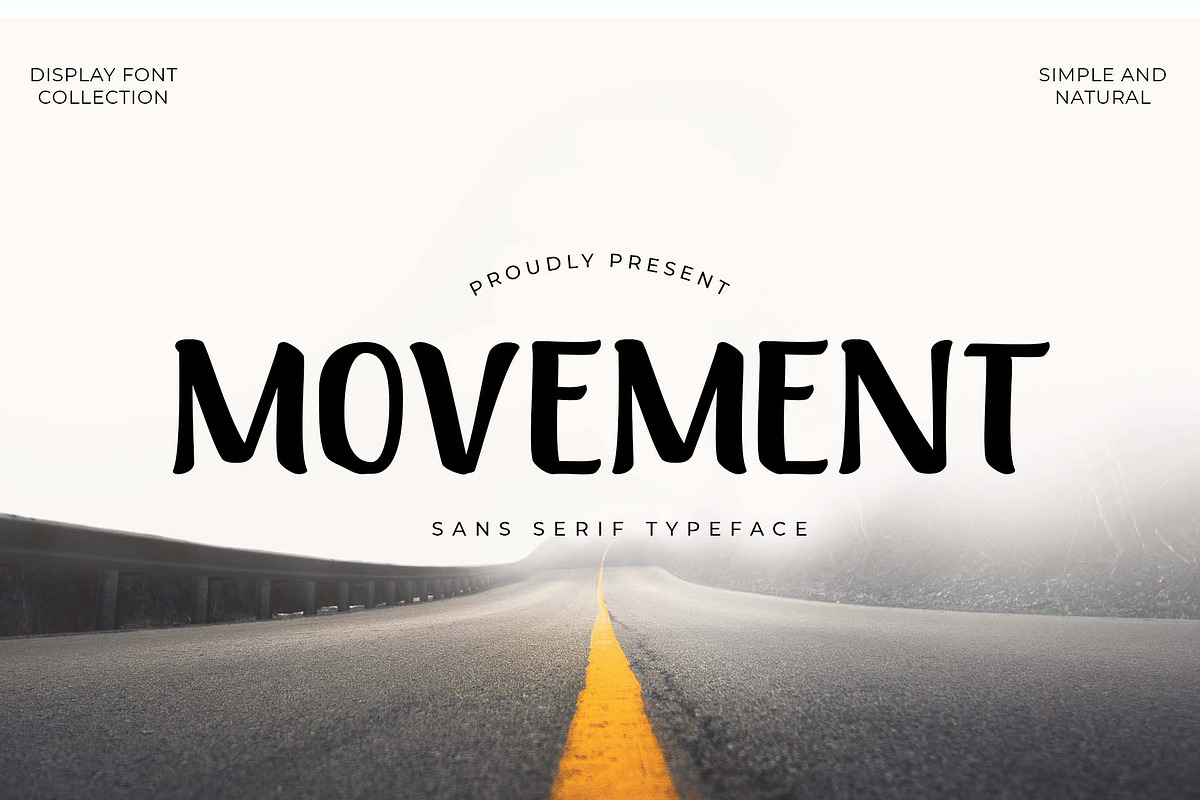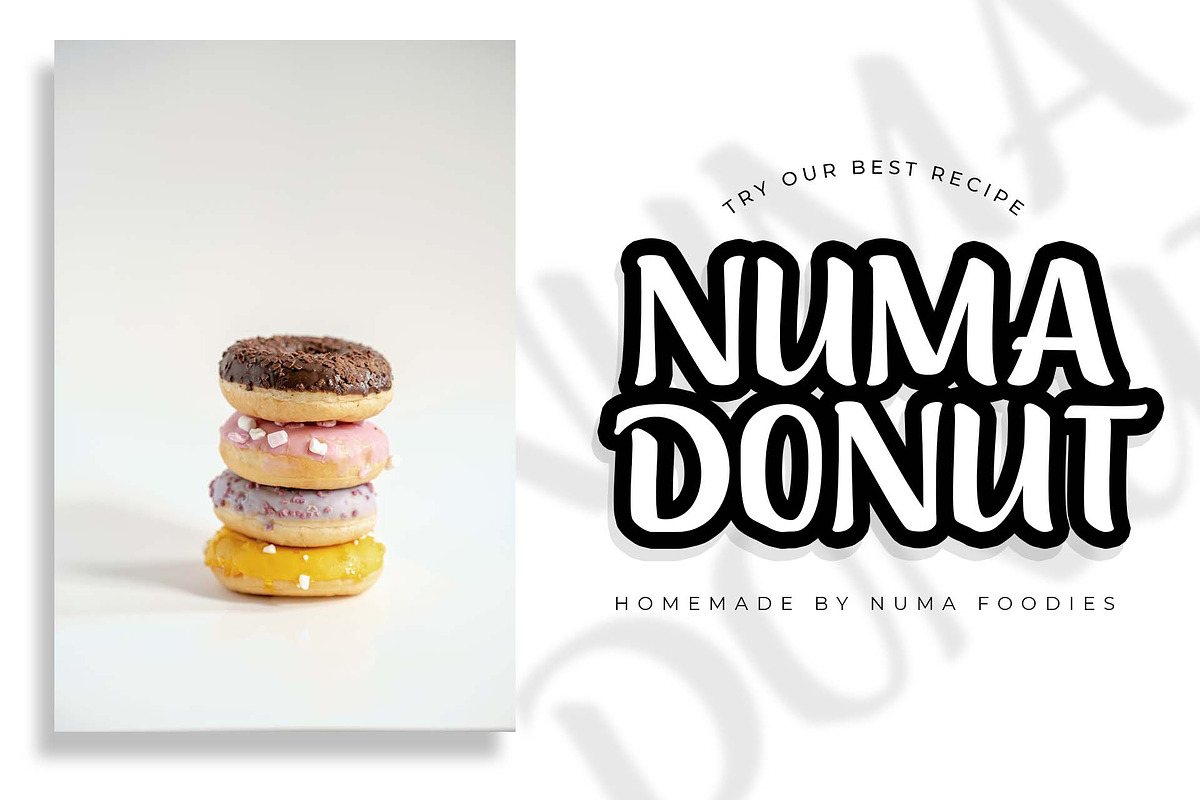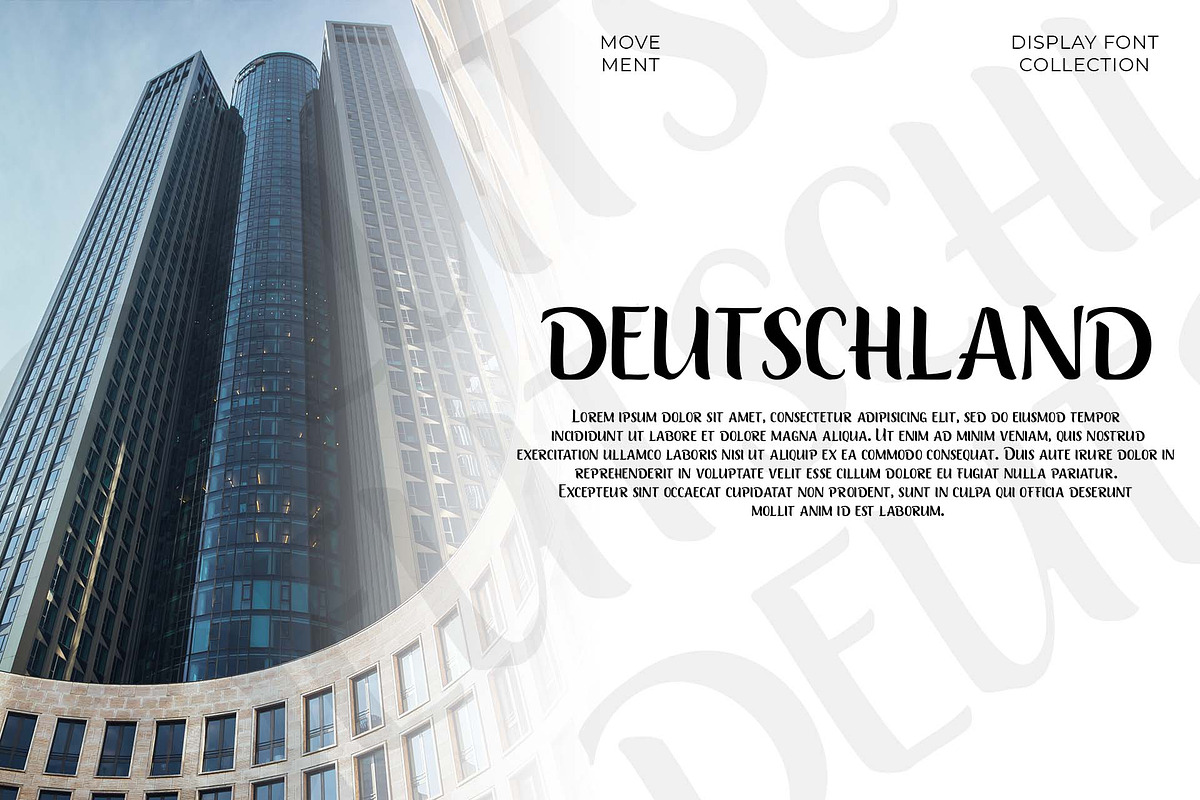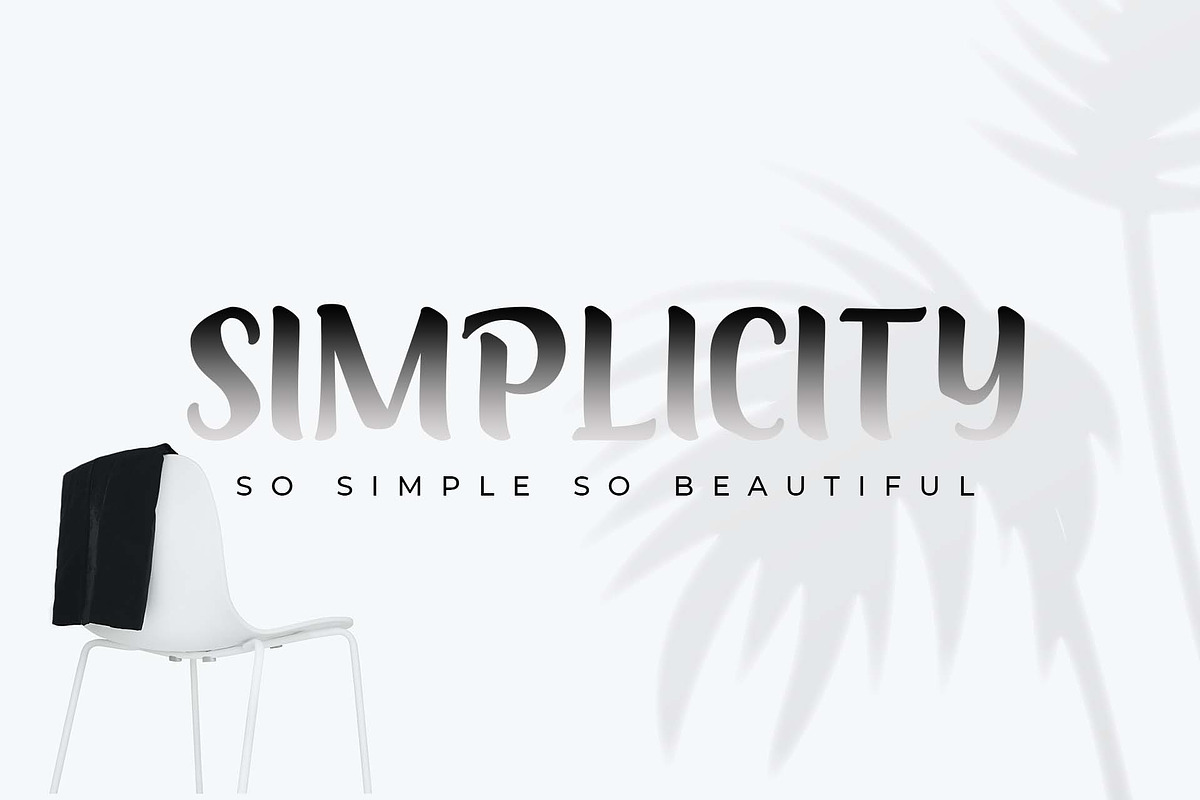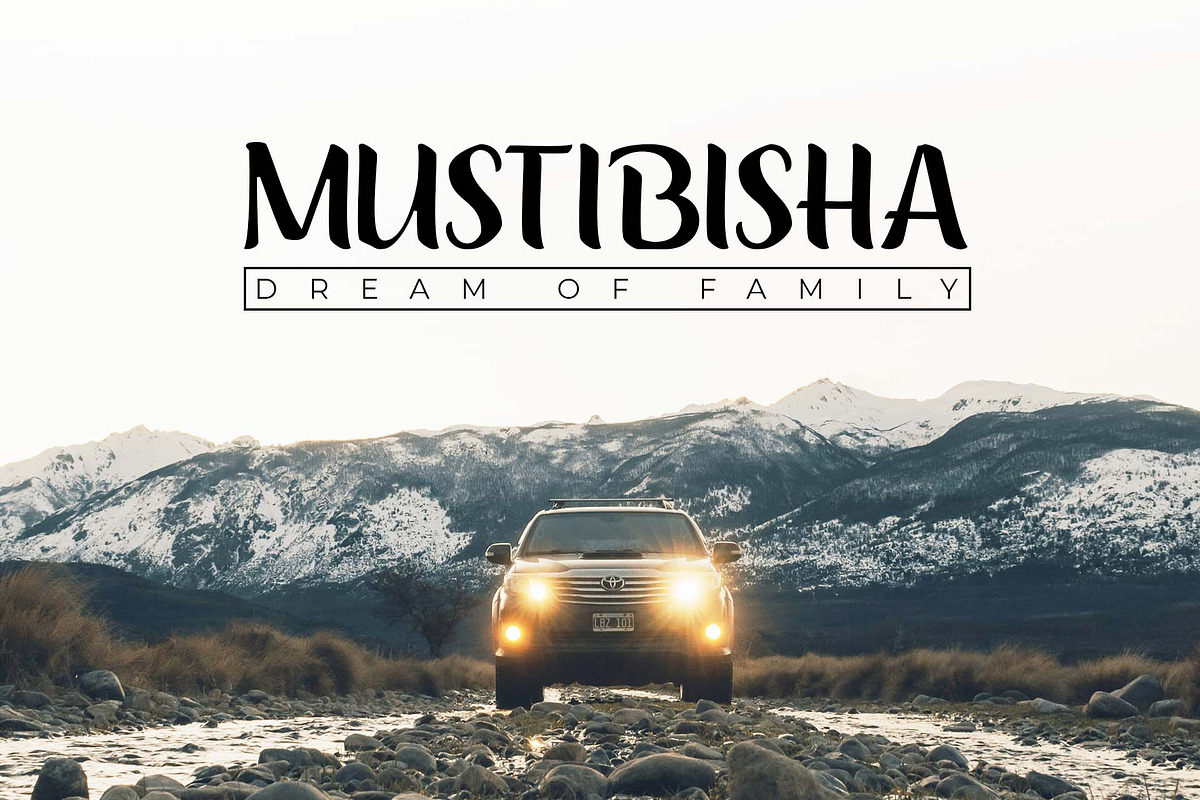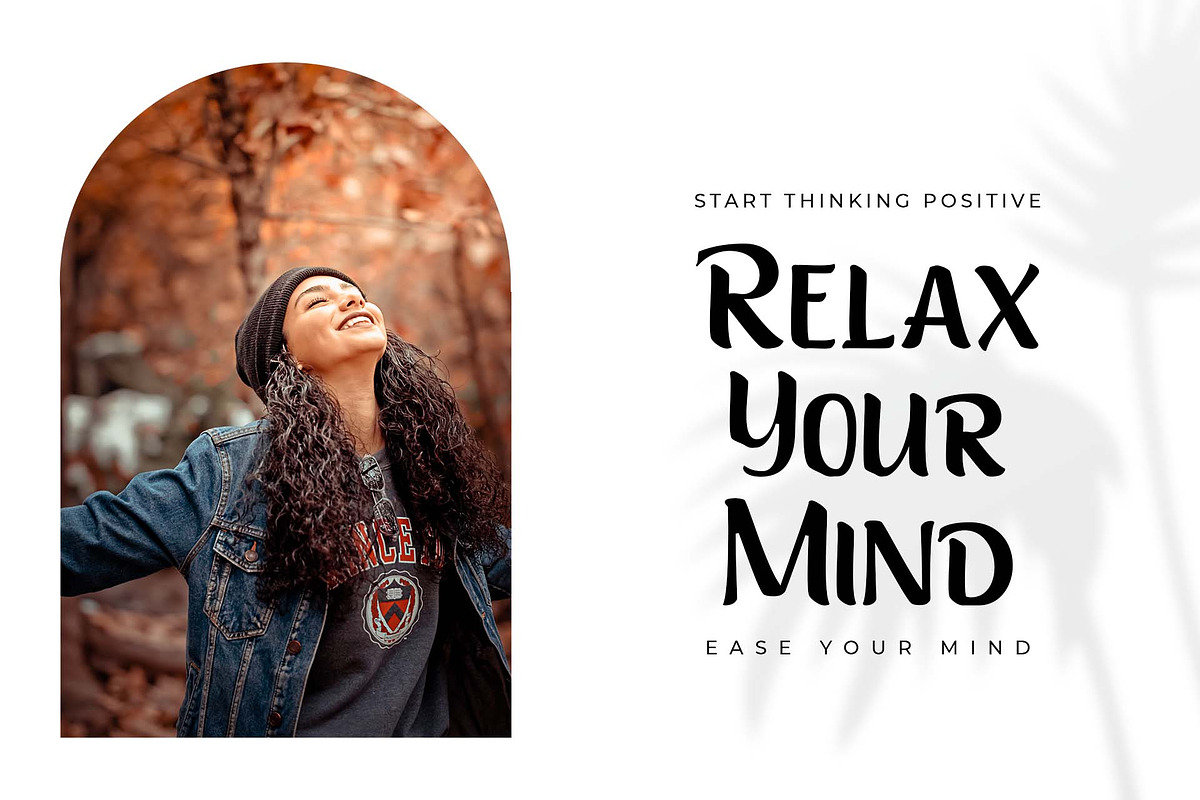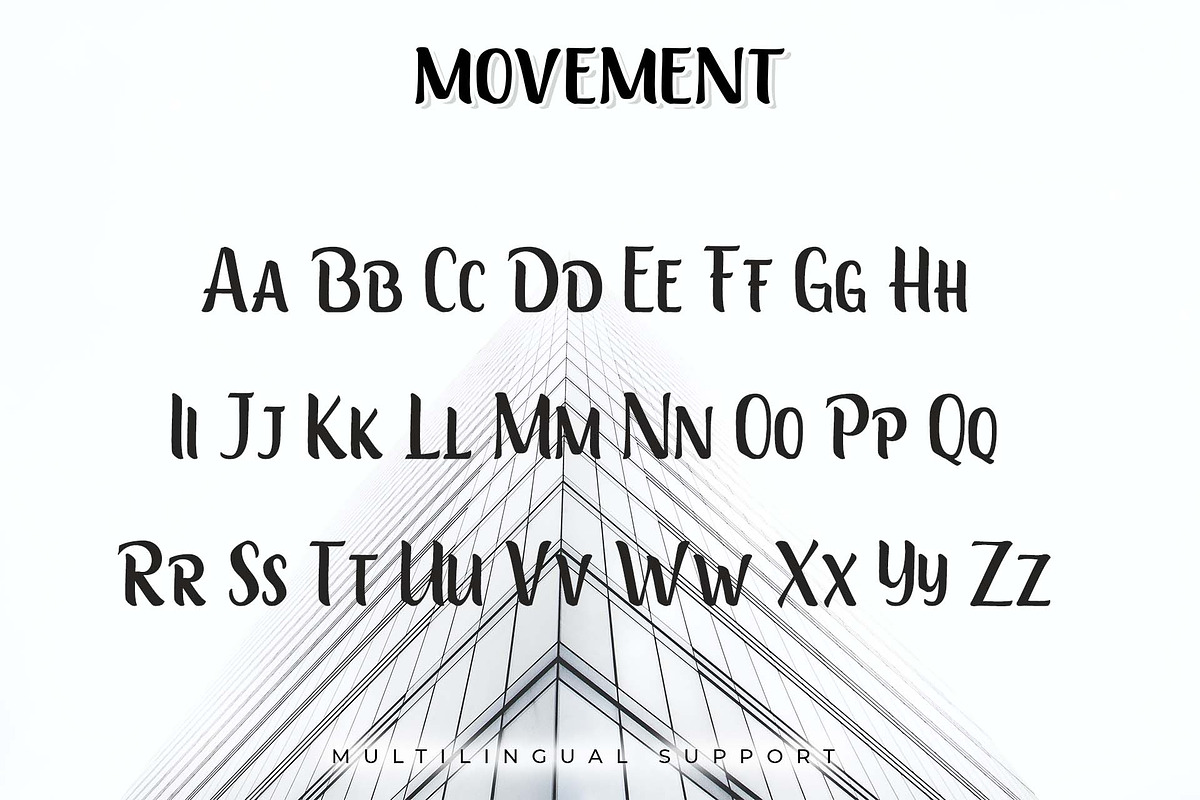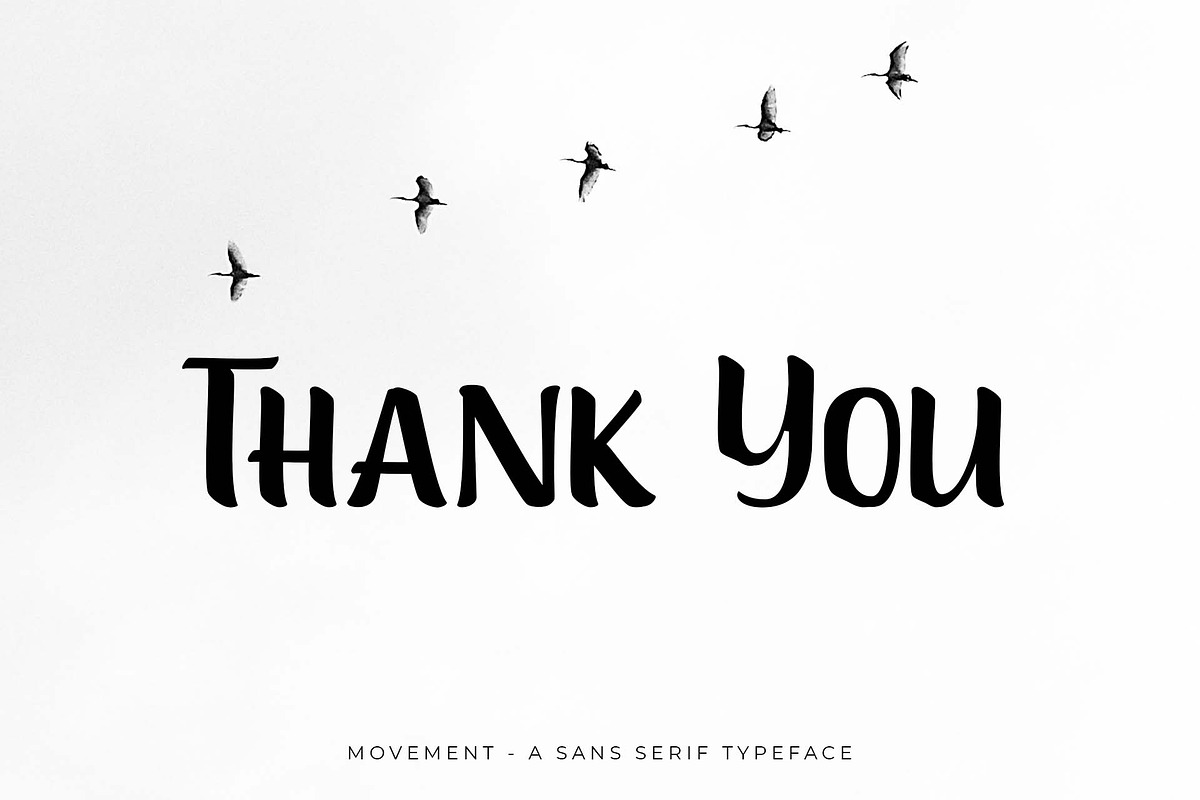
Movement - A Sans Serif Typeface
Introducing one of our best product, Movement. Movement is simple, natural, and elegant sans serif typeface. It can easily be matched to an incredibly large set of projects for your company/corporate, so add it to your creative ideas and notice how it makes them stand out!